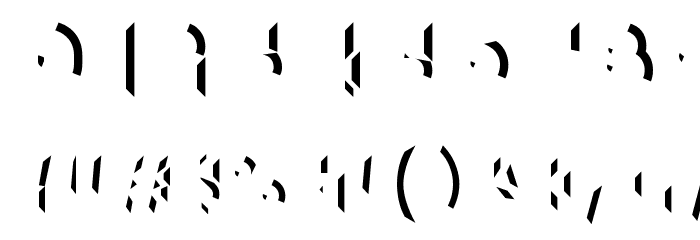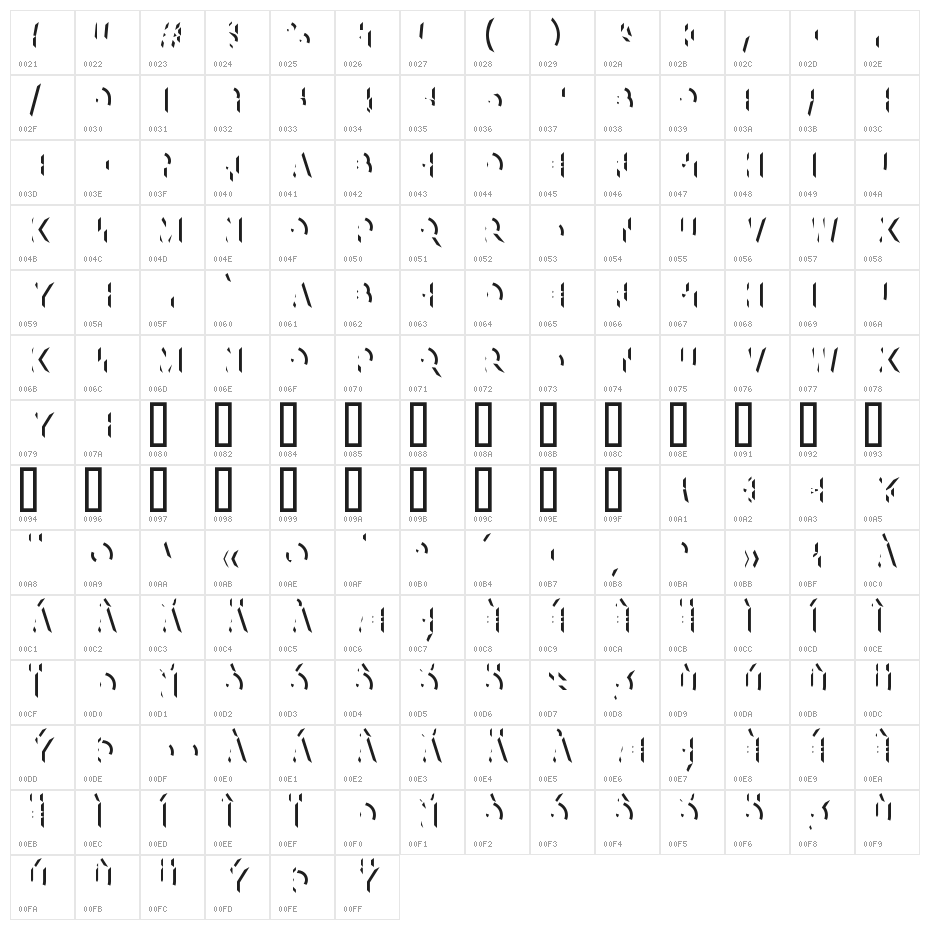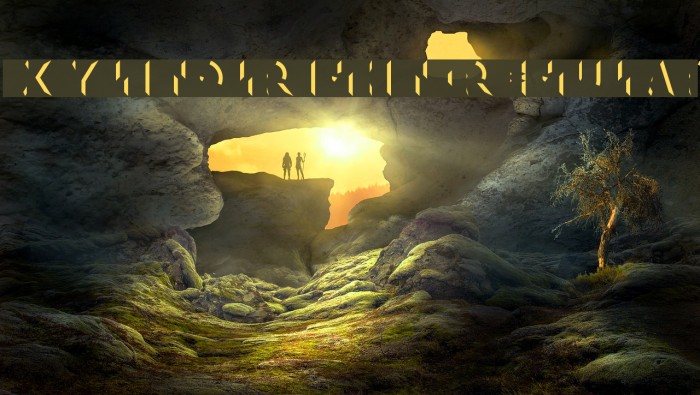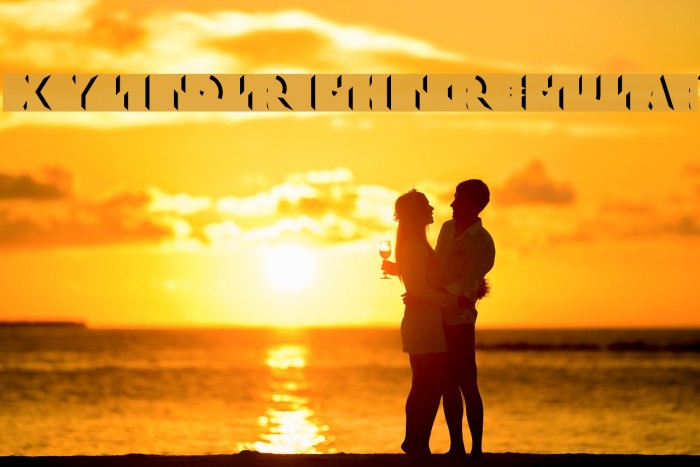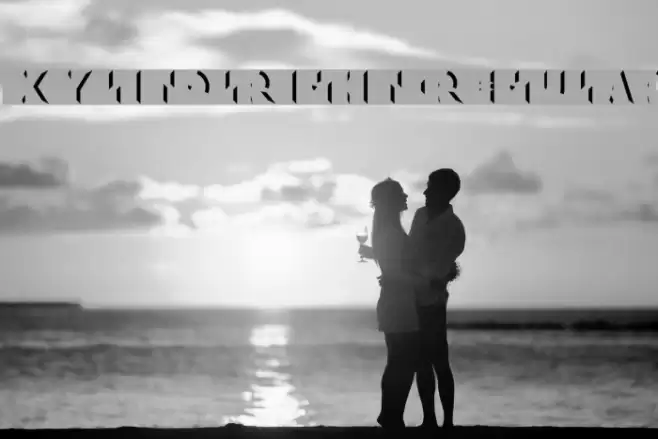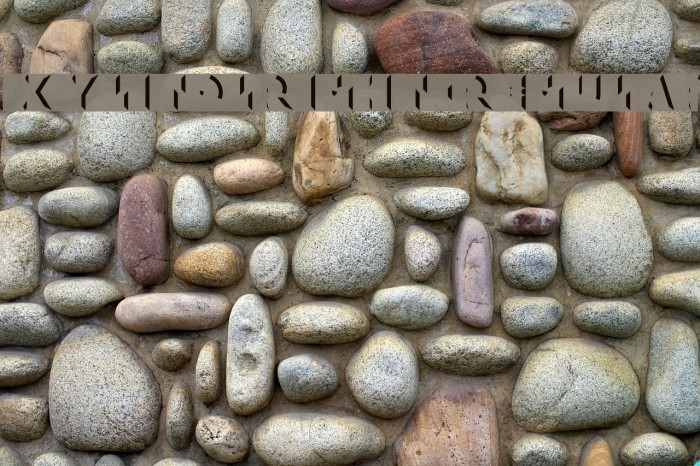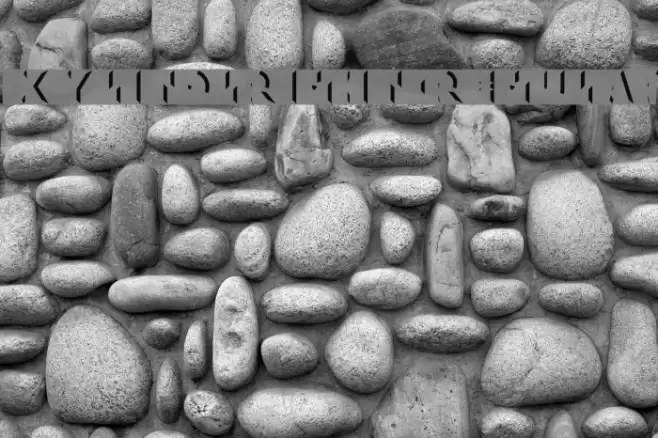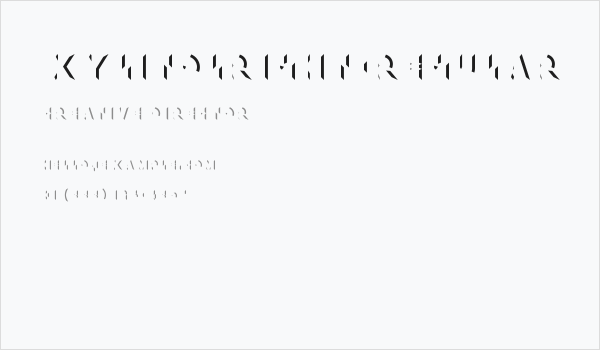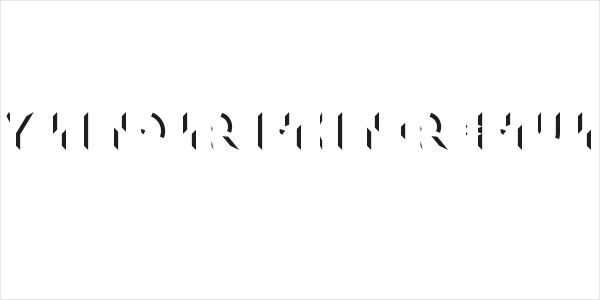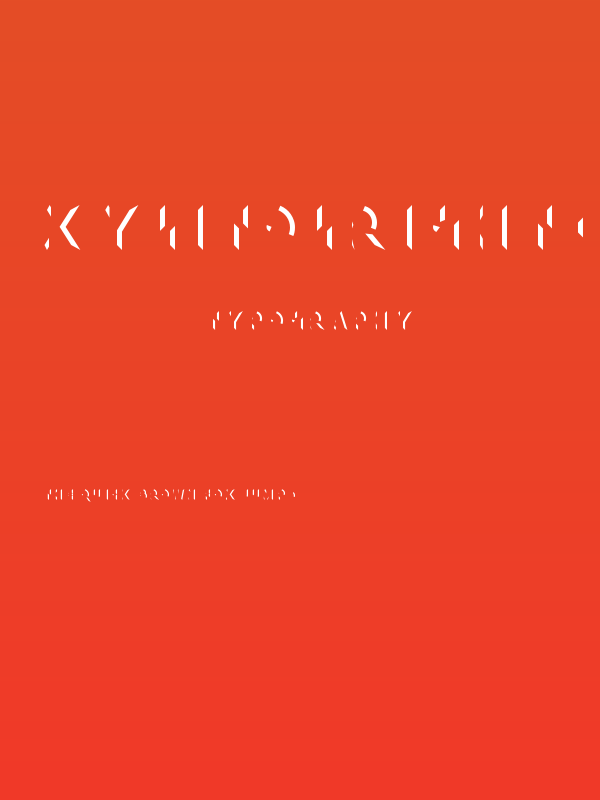
XylitolRight-Regular Font
XylitolRight-Regular Description
This font features a modern and abstract design with a unique stencil-like appearance. Each character is crafted with precision, incorporating sharp angles and geometric cuts that create a sense of movement and dynamism. The font maintains a consistent weight throughout, which adds to its bold and impactful presence. The characters are well-spaced, ensuring readability while maintaining the artistic integrity of the design. This font is ideal for projects that require a contemporary and edgy aesthetic, making it suitable for branding, advertising, and creative displays.
| Proposed Projects | Ideal for branding, advertising, creative displays, and modern art projects. |